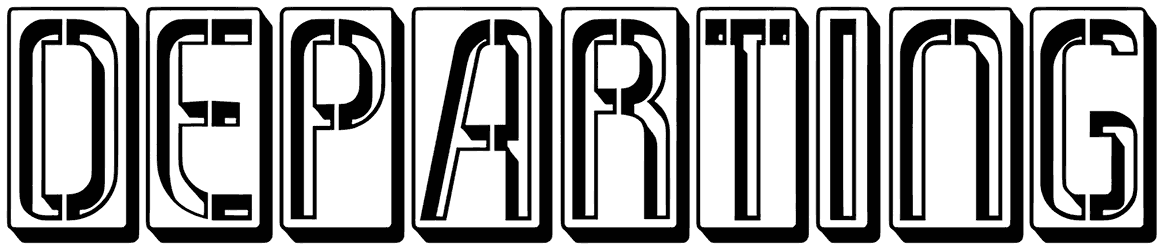
Decorative Olivia Font
Decorative Olivia font feels like one of those charming display fonts made for designs that need a little sweetness without turning childish. The letters have a soft decorative personality, playful enough to make a headline feel welcoming, but still neat enough to keep the whole layout looking intentional.
Use it for bakery logos, cute packaging, greeting cards, boutique tags, craft fair posters, kids’ party invites, or social media quotes that need a friendly spark. Pair this decorative font with pastel palettes, hand-drawn flowers, paper textures, or simple doodle icons, and your design starts feeling personal, warm, and happily handmade.
Designed by: Kong Font